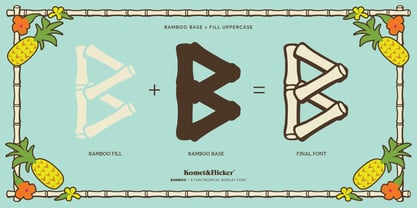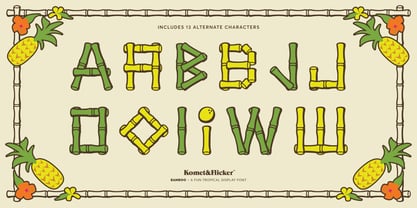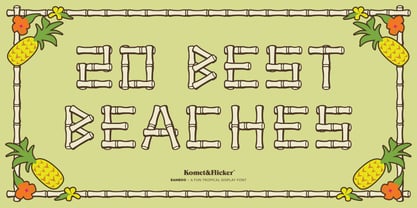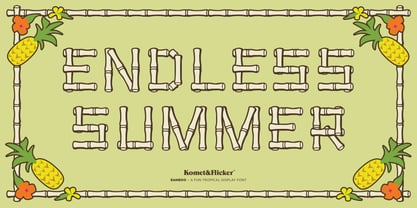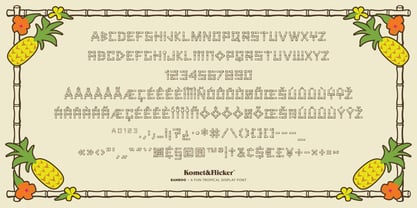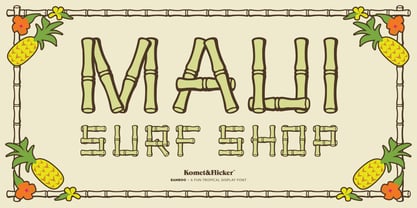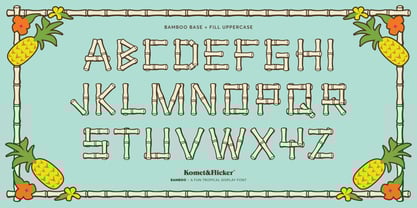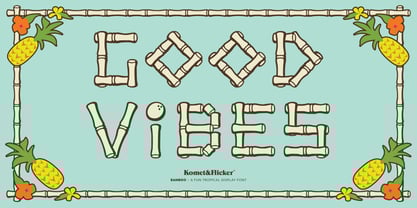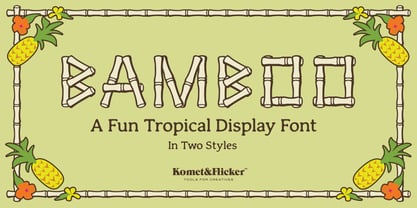
BAMBOO
by Komet & Flicker
The BAMBOO Font Family was designed by David Phillips and published by Komet & Flicker. BAMBOO contains 2 styles and family package options.
Escape to a tropical paradise with BAMBOO, a font that brings the essence of lush, sun-drenched islands right to your designs. Perfect for travel brochures, beach-themed events, or any project in need of a hint of exotic charm, BAMBOO adds a touch of playful sophistication with its fluid, organic lines.
Infuse your designs with the refreshing energy of the tropics. Let BAMBOO transport your audience to a serene island getaway, where every letter carries the warm embrace of paradise.
This font comes in two styles:
• BAMBOO Regular
• BAMBOO Fill + Base
Please note: BAMBOO Fill and BAMBOO Base are two separate fonts but together create a single style.
Designers: David Phillips
Publisher: Komet & Flicker
Foundry: Komet & Flicker
Original Foundry: Komet & Flicker
Design Owner: Komet & Flicker